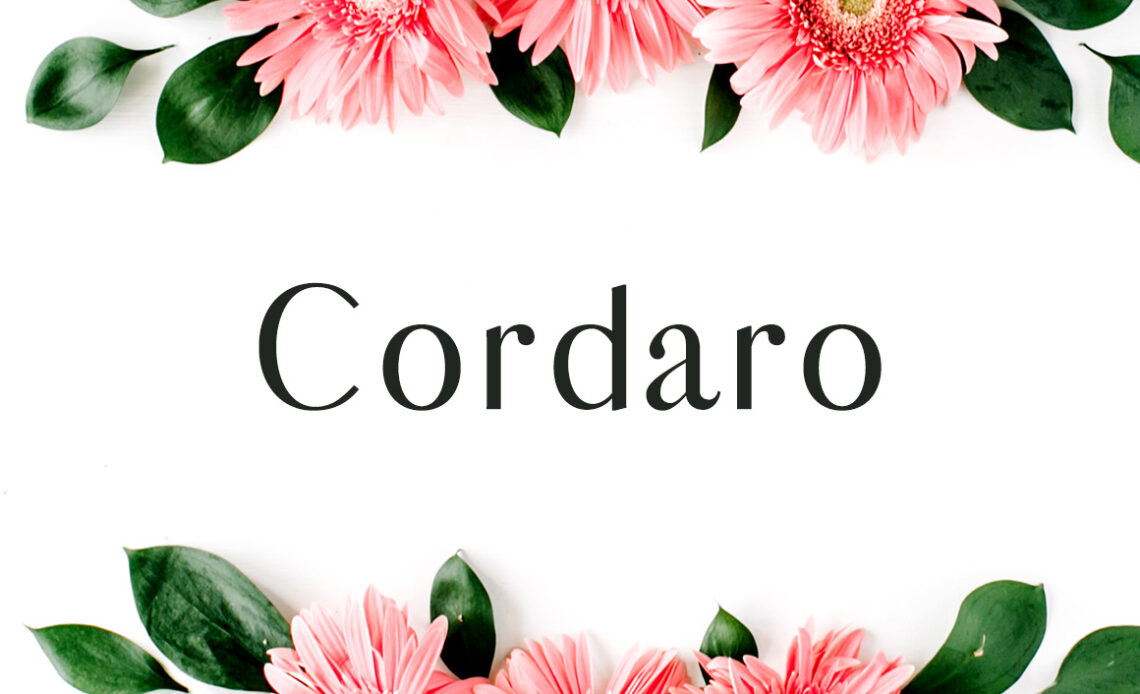
Indulge in the enchanting world of Cordaro, a sophisticated serif font meticulously crafted by Creative Tacos. Its timeless elegance and impeccable construction make it an irresistible choice for those seeking to elevate their designs.
Cordaro's clean lines and well-defined characters exude a sense of sophistication, perfect for projects that demand an editorial touch. Whether you're designing captivating headlines, alluring posters, or sophisticated invitations, Cordaro's presence adds an instant touch of class.
Embrace the allure of Cordaro today and witness the transformation of your designs. Its versatility knows no bounds, allowing you to infuse your projects with a timeless appeal that will leave a lasting impression on your audience. From elegant logos to captivating social media posts, Cordaro's charm is undeniable. Discover the beauty of serif typography and make your designs stand out with the captivating eloquence of Cordaro.